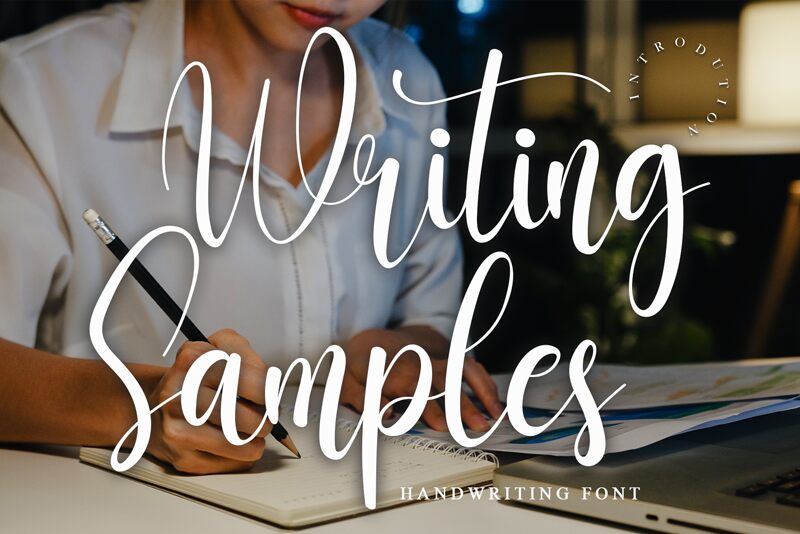
Writing Samples is a script typeface created by creatype designer. This free font radiates elegance with its flowing, expressive style and calligraphic roots. Uniting contemporary and artistic elements, Writing Samples presents a dynamic and sophisticated look. Graceful and personalized, this font captures the fine balance between artistic flair and readability.
Various creative projects will benefit from this typeface as it finds its application in fashion, beauty, photography, wedding invitations, name tags, branding, logo crafting, social media, magazines, and book cover design. Personal and commercial uses alike will thrive under the positive influence that this font will bring in terms of new fan engagement and an overall neat appearance.
This font combines a timeless calligraphic style with a modern twist, making it the perfect choice for a variety of creative projects, including letterheads, titles, and stationery. Its versatility will appeal to a wide audience looking for unique design options.